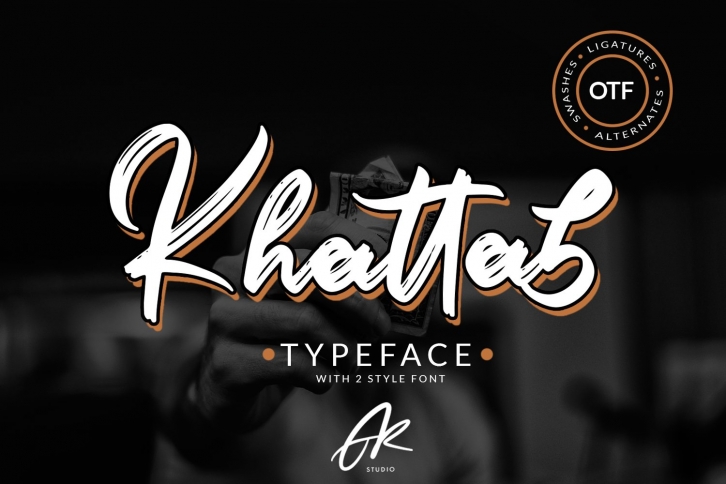
Khattab Brush Script Font is a font with distinctive handwritten characters perfect for branding projects, logos, wedding designs, media posts, advertisements, product packaging, product designs, labels, photography, watermarks, invitations, stationery, and any project who need handwritten dishes.
Features : • Character Set A-Z • Numerals & Punctuations (OpenType Standard) • Accents (Multilingual characters) • Ligature • Swash There it is! I really hope you enjoy it - comments & likes are always welcome and accepted. More importantly, don't hesitate to send a message if you have a problem or question.Now just read this, go there and make it happen :)